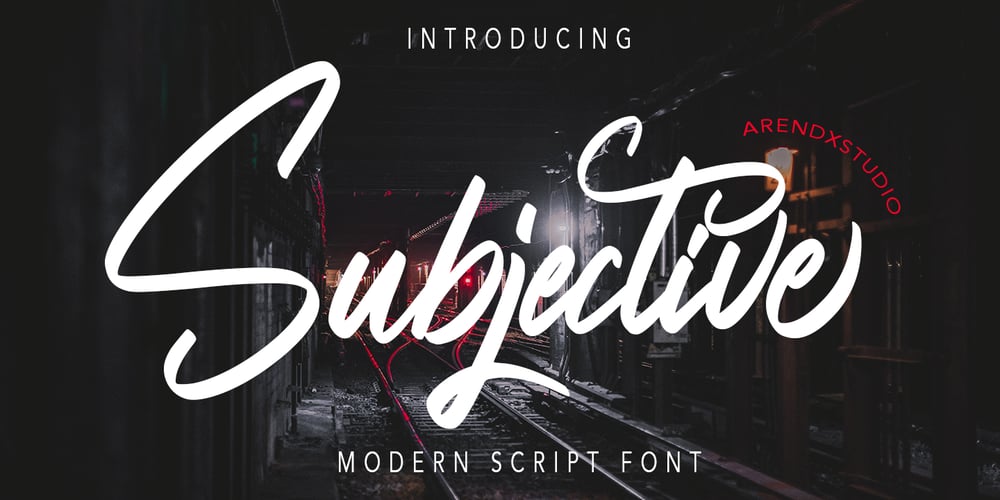
Subjective Font Family was designed by Asep Rendi and published by Arendxstudio. Subjective contains 1 styles and family package options. Introducing a Subjective Modern script fonts with sharp and beautiful letters that create fonts that are modern, tendy and elegant. Subjective came with opentype features such stylistic alternates, stylistic sets & ligatures good for logotype, poster, badge, book cover, tshirt design, packaging and any more.Features : • Character Set A-Z • Numerals & Punctuations (OpenType Standard) • Accents (Multilingual characters) • Ligature • Alternate